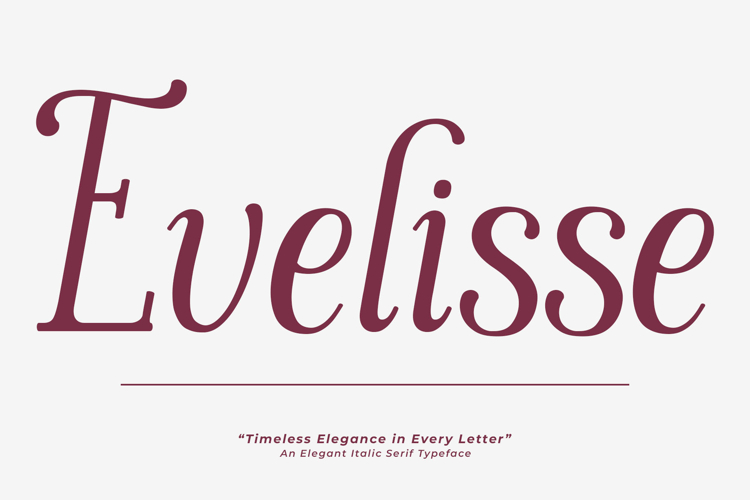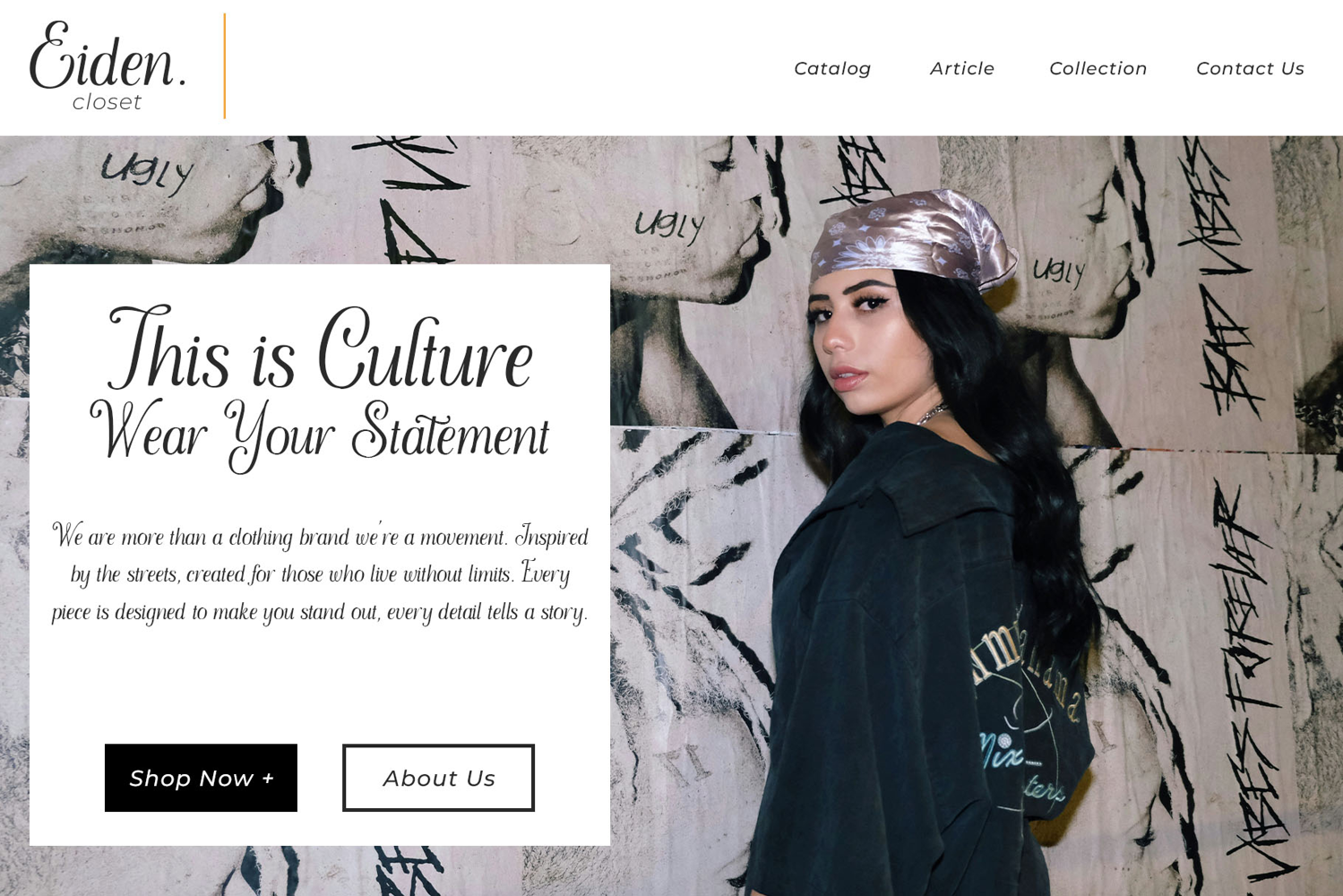
Evelisse Elegant Italic Serif Typeface
Introducing Evelisse, a sophisticated italic serif font designed to combine classical elegance with modern refinement. Each letter is crafted with delicate curves and stylish details, making Evelisse the perfect choice for high-end creative projects.
Elevate your design with Evelisse a typeface that brings timeless beauty to every project.